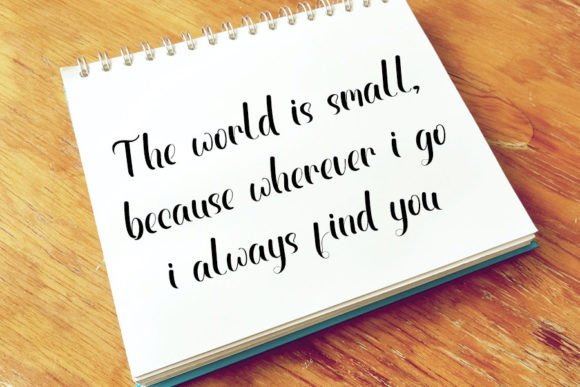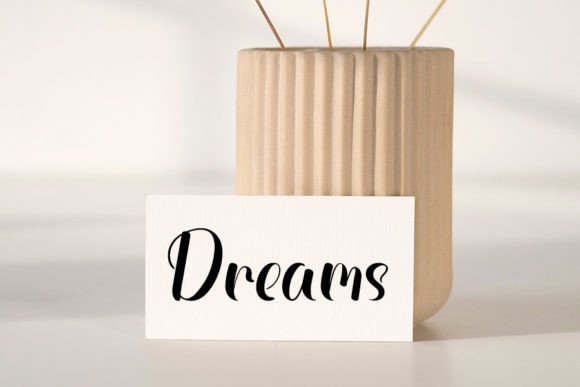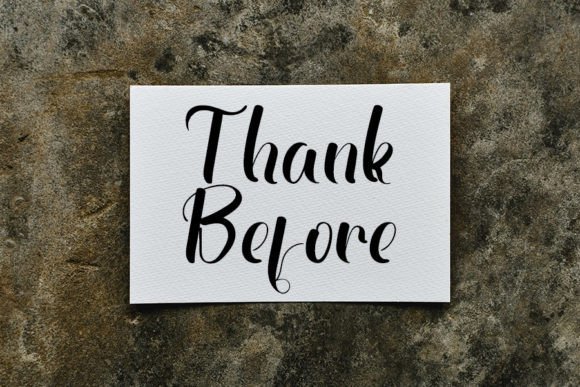
About Hello Boho Font
Hello Boho Font is a beautiful handwritten script that combines a neat structure with timeless elegance. With smooth strokes and graceful details, this typeface adds charm and personality to all kinds of projects. Because of its versatility, Hello Boho Font is perfect for invitations, greeting cards, logos, posters, and branding.
A Handwritten Typeface with Elegance and Personality
Handwritten fonts are admired for their ability to bring warmth and originality, and Hello Boho Font enhances this with its polished design. Its balanced rhythm and refined strokes ensure readability while maintaining a handcrafted feel. Moreover, its elegant look adapts seamlessly to both professional and casual layouts. As a result, this script font is a reliable option for creatives seeking sophistication with approachability.
If you enjoy designing stationery, Hello BohoFont will quickly become one of your favorites. For example, it can transform a wedding invitation into a keepsake filled with charm and romance. In addition, it works beautifully for seasonal greetings, thank-you notes, and birthday cards. Because of its elegant flow, every design feels more personal, heartfelt, and memorable.
A Script Typeface for Logos and Branding
Brands and professionals looking to enhance their identity can rely on Hello Boho Font. It adds sophistication and uniqueness to logos, packaging, and product labels. Furthermore, on social media, it brings refinement to posts, stories, and promotional graphics. When paired with clean sans serif fonts, Hello BohoFont achieves harmony between professionalism and creativity.
Another advantage of Hello BohoFont is its adaptability across mediums. In print, it enhances posters, brochures, magazines, and merchandise. Digitally, it elevates websites, blogs, and presentations with elegance. Since it remains legible across both small and large sizes, this handwritten script is reliable for a wide range of creative applications.